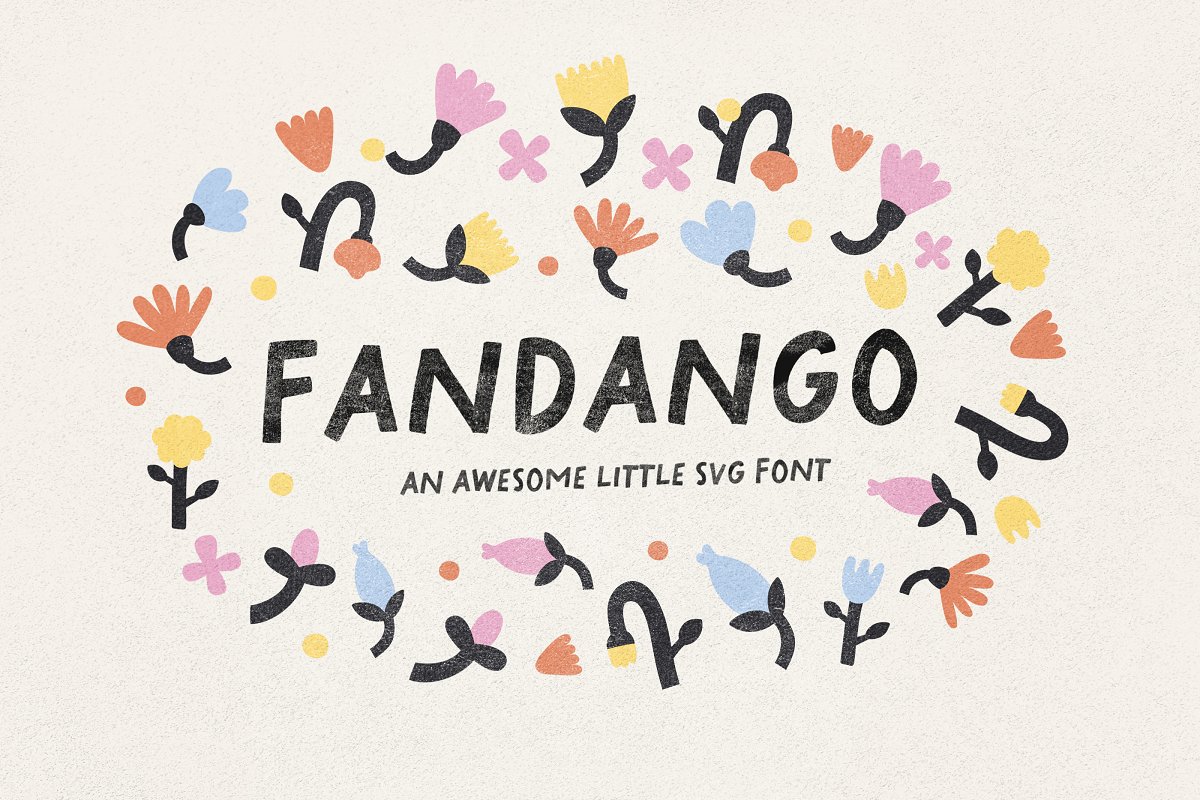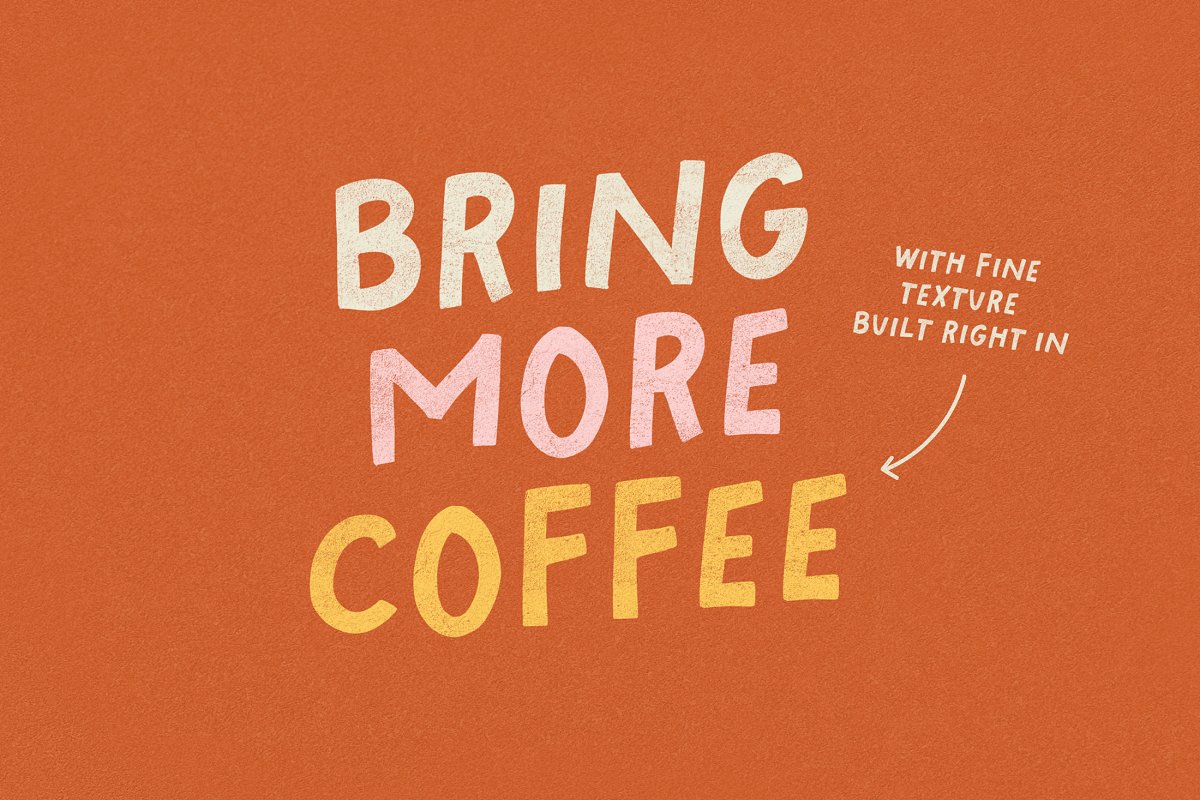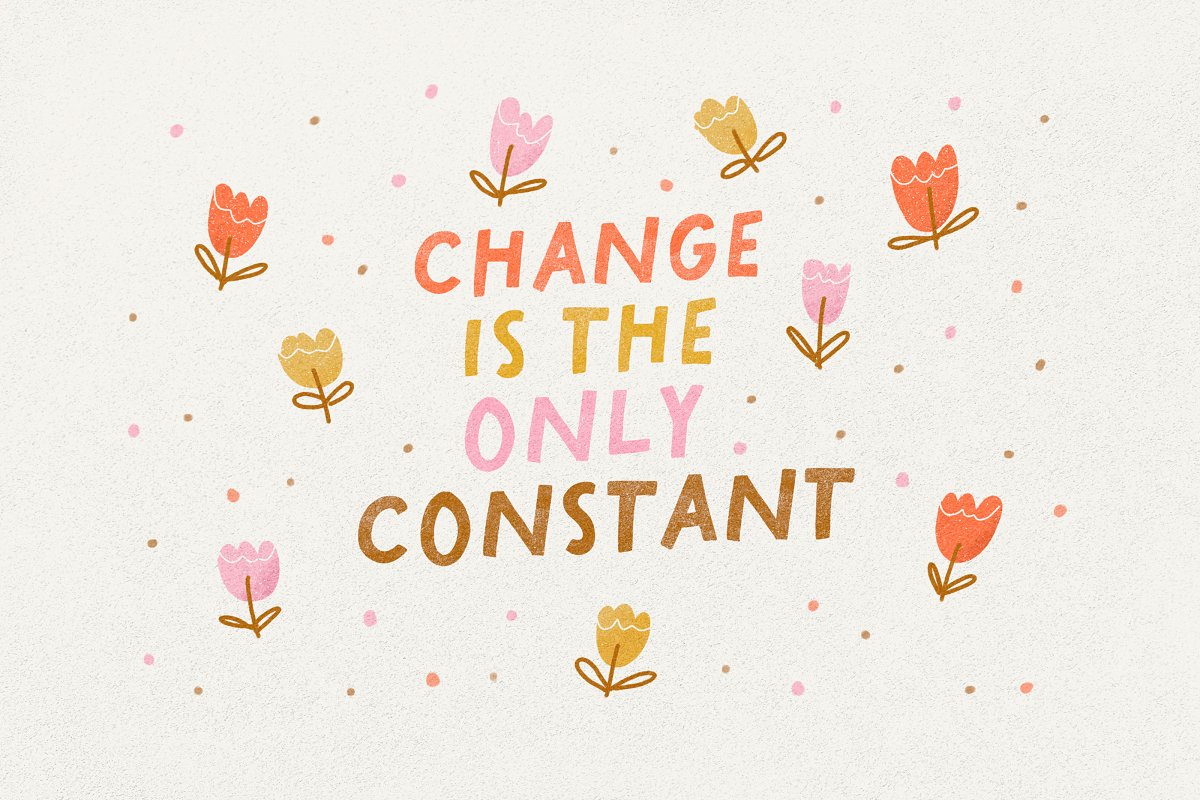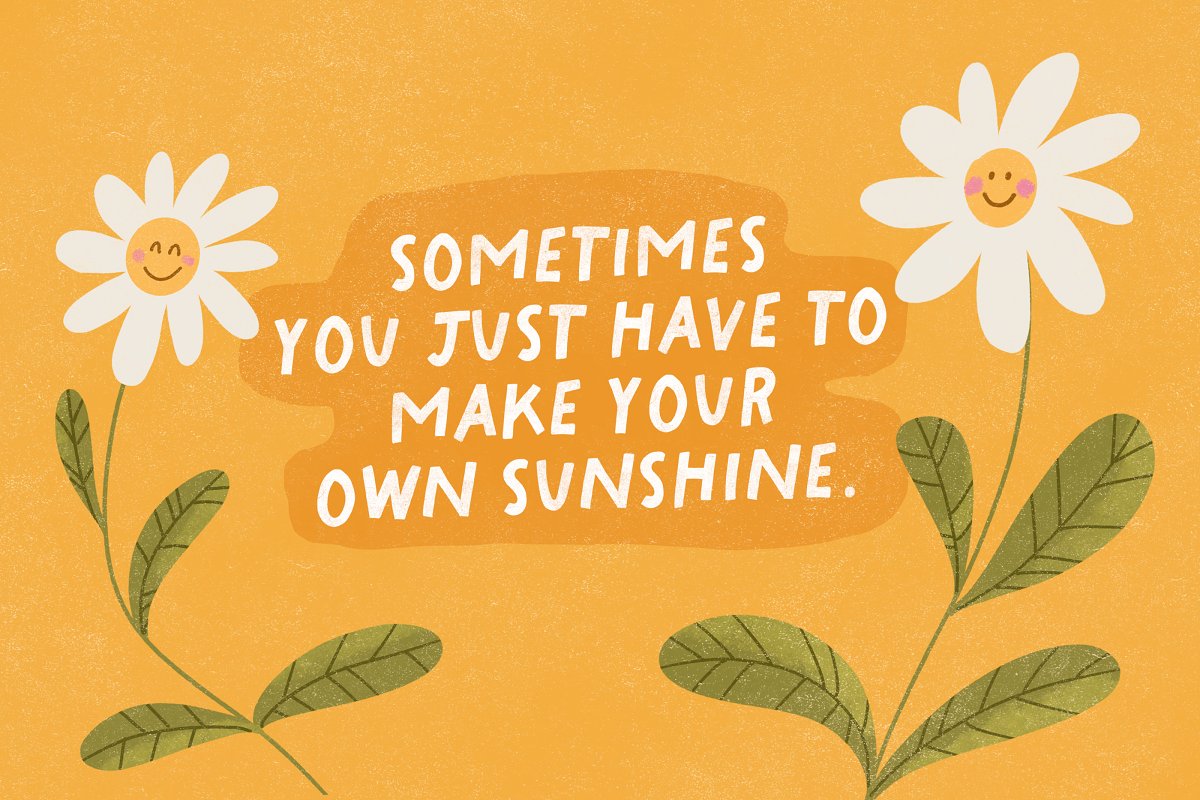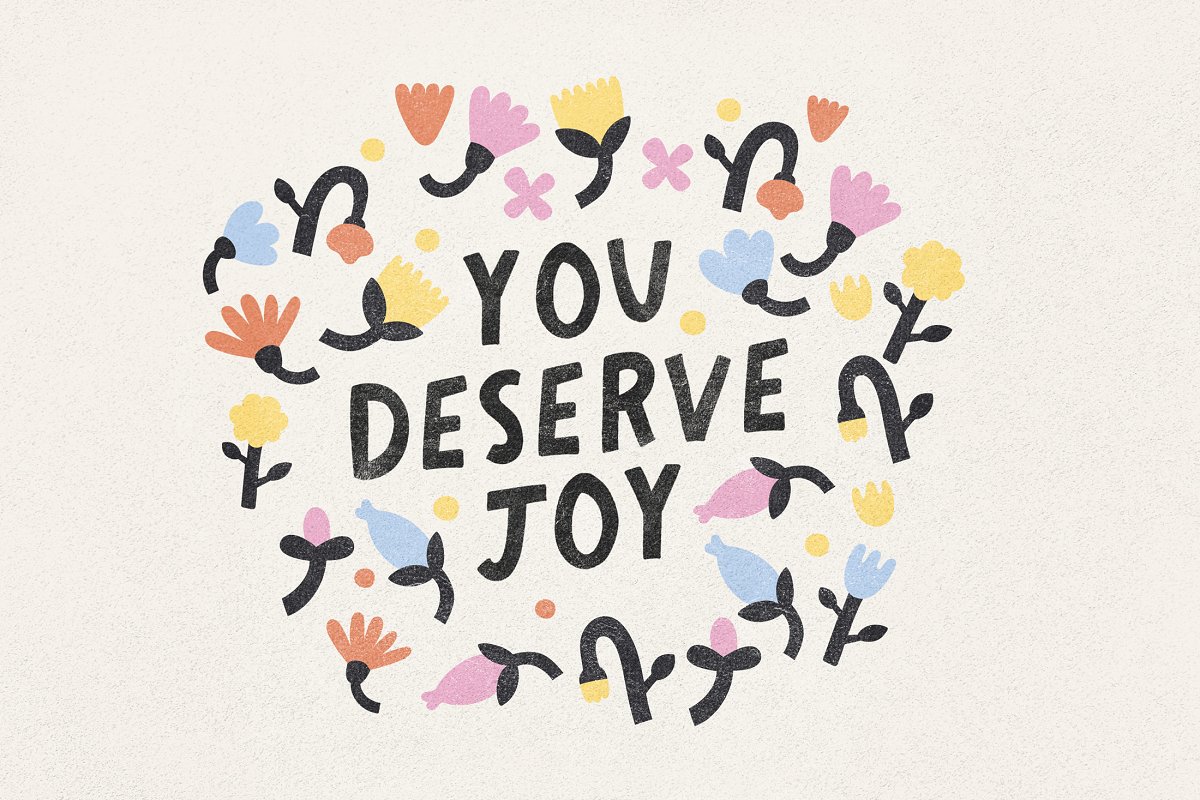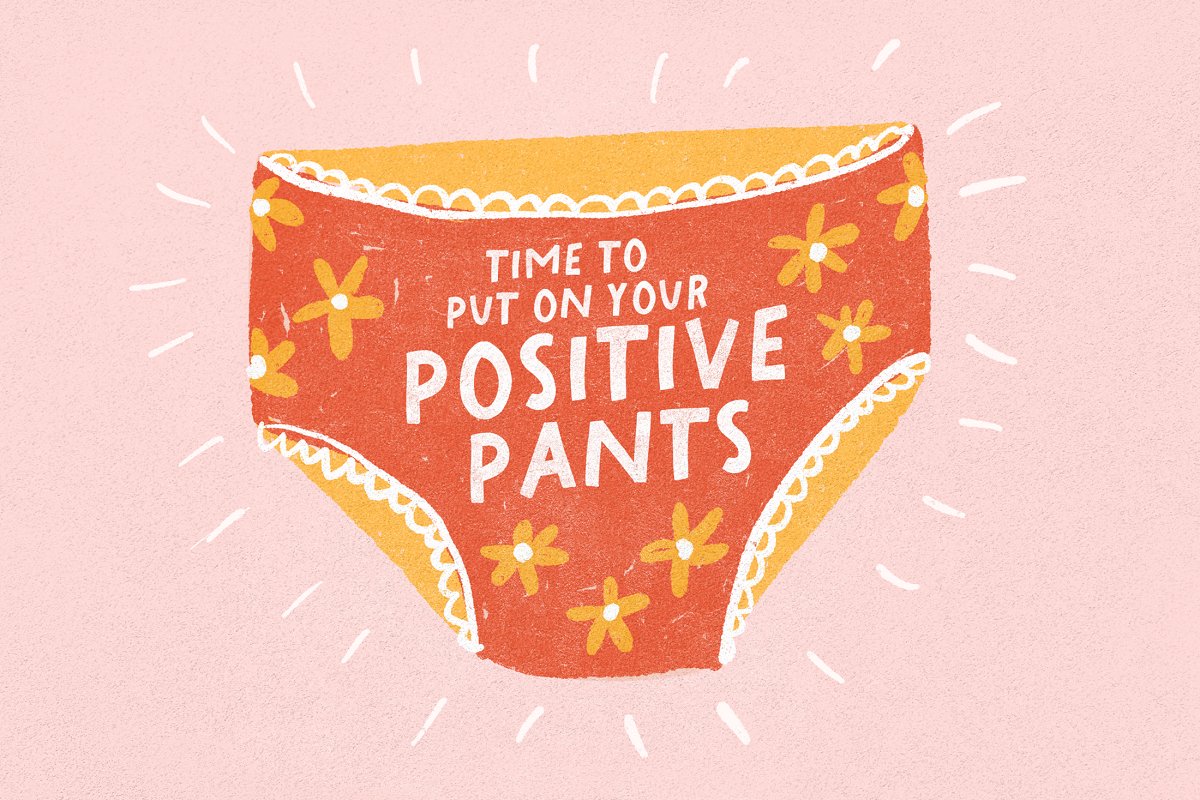
About the Fandango SVG Regular Font
Say hello to Fandango 🙂 A wonky, playful all caps hand-lettered SVG font – with subtle texture built right in!
Great for stand-out quotes, playful branding, children’s books, quirky greeting cards and so much more!
A more traditional ampersand is included in Opentype features as an alternate to the current ampersand if you need it 🙂